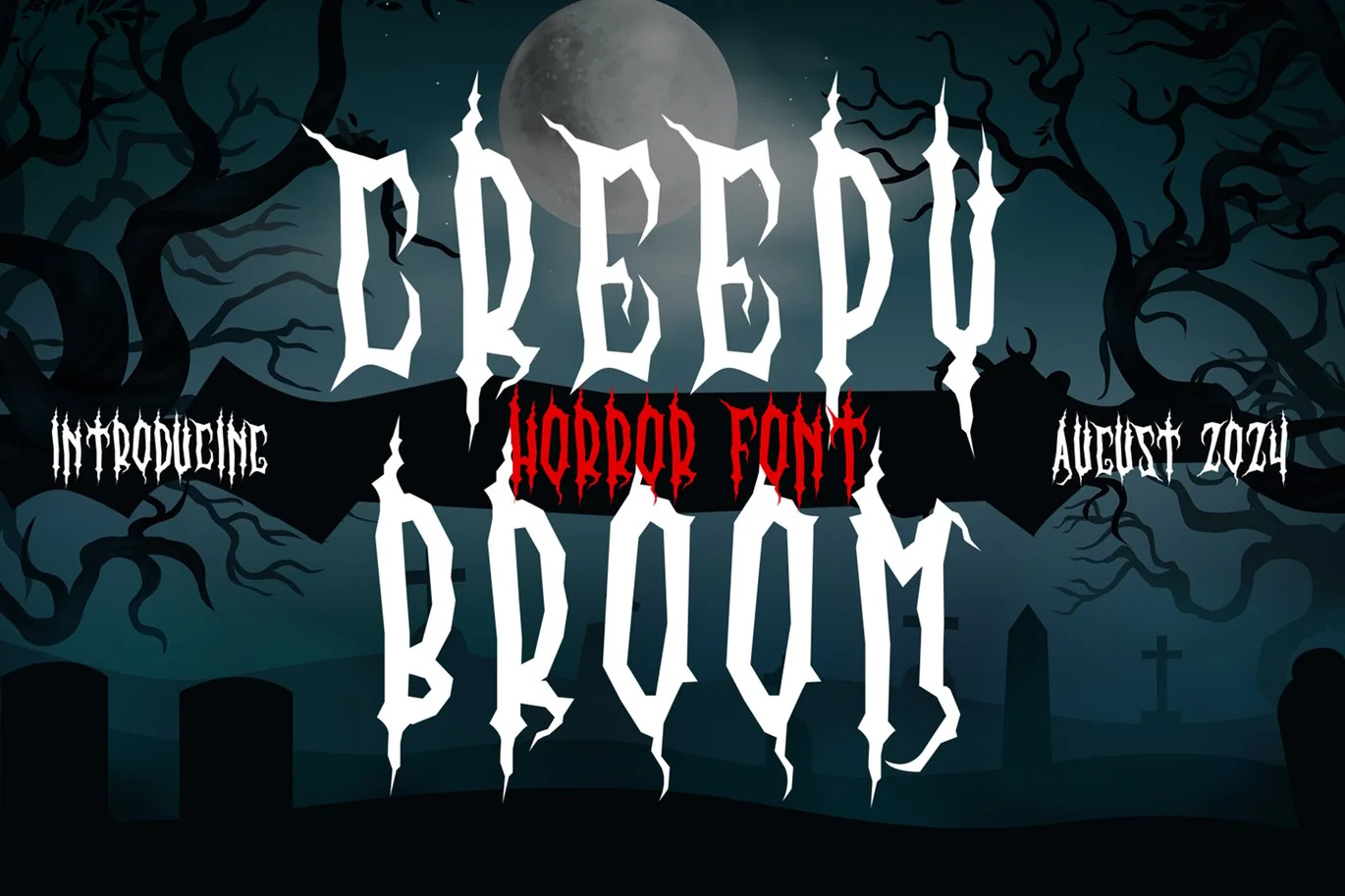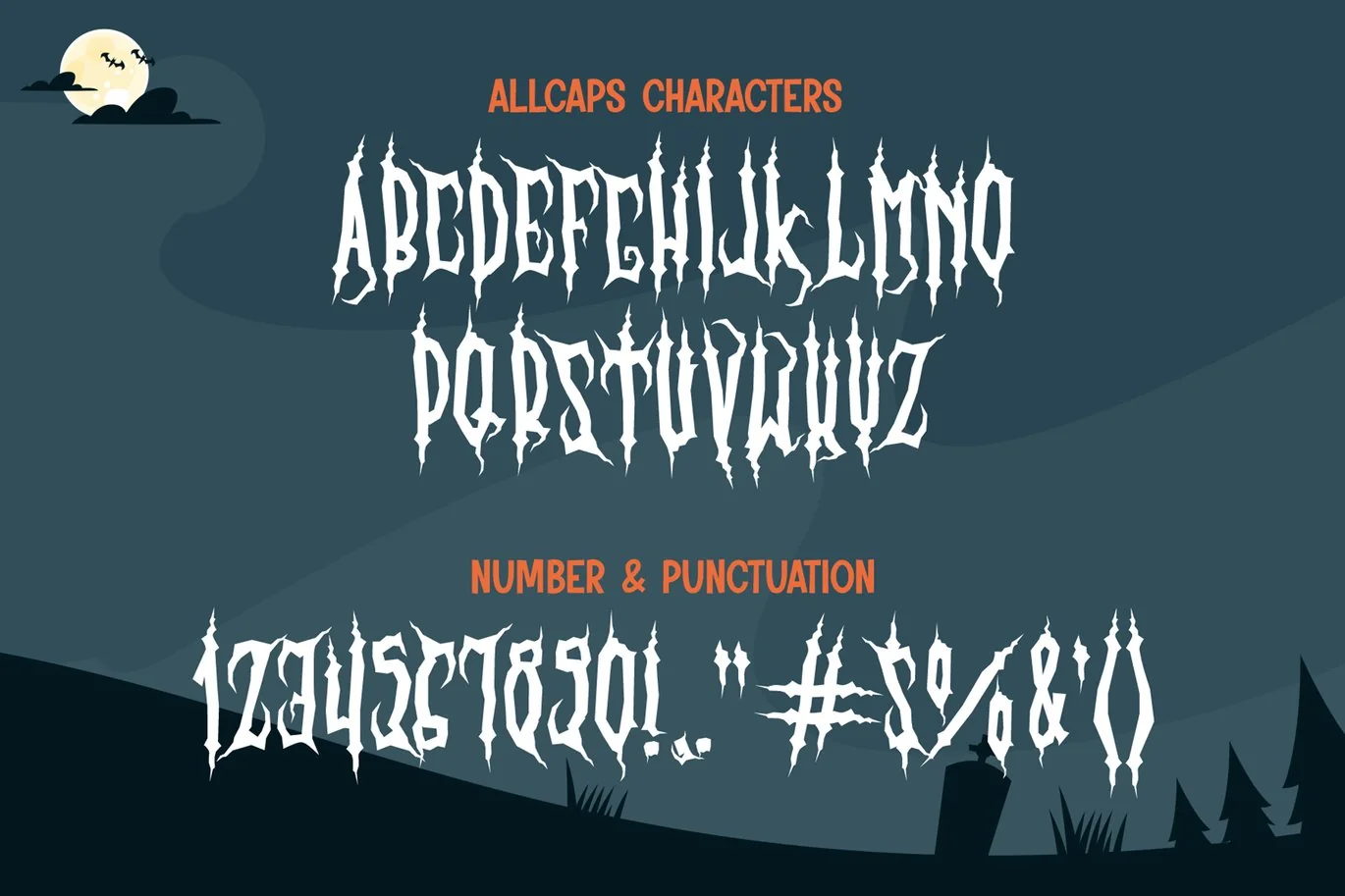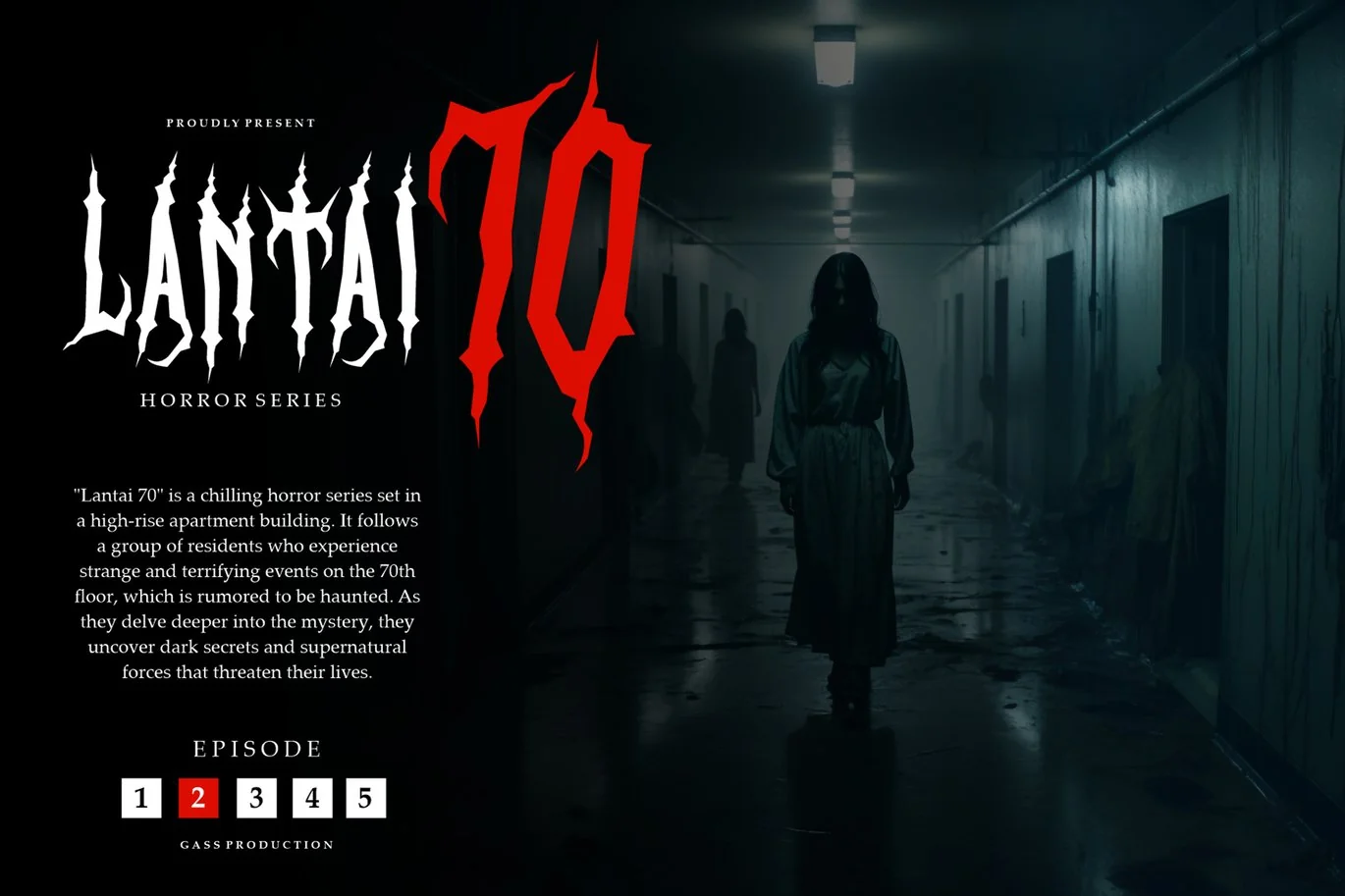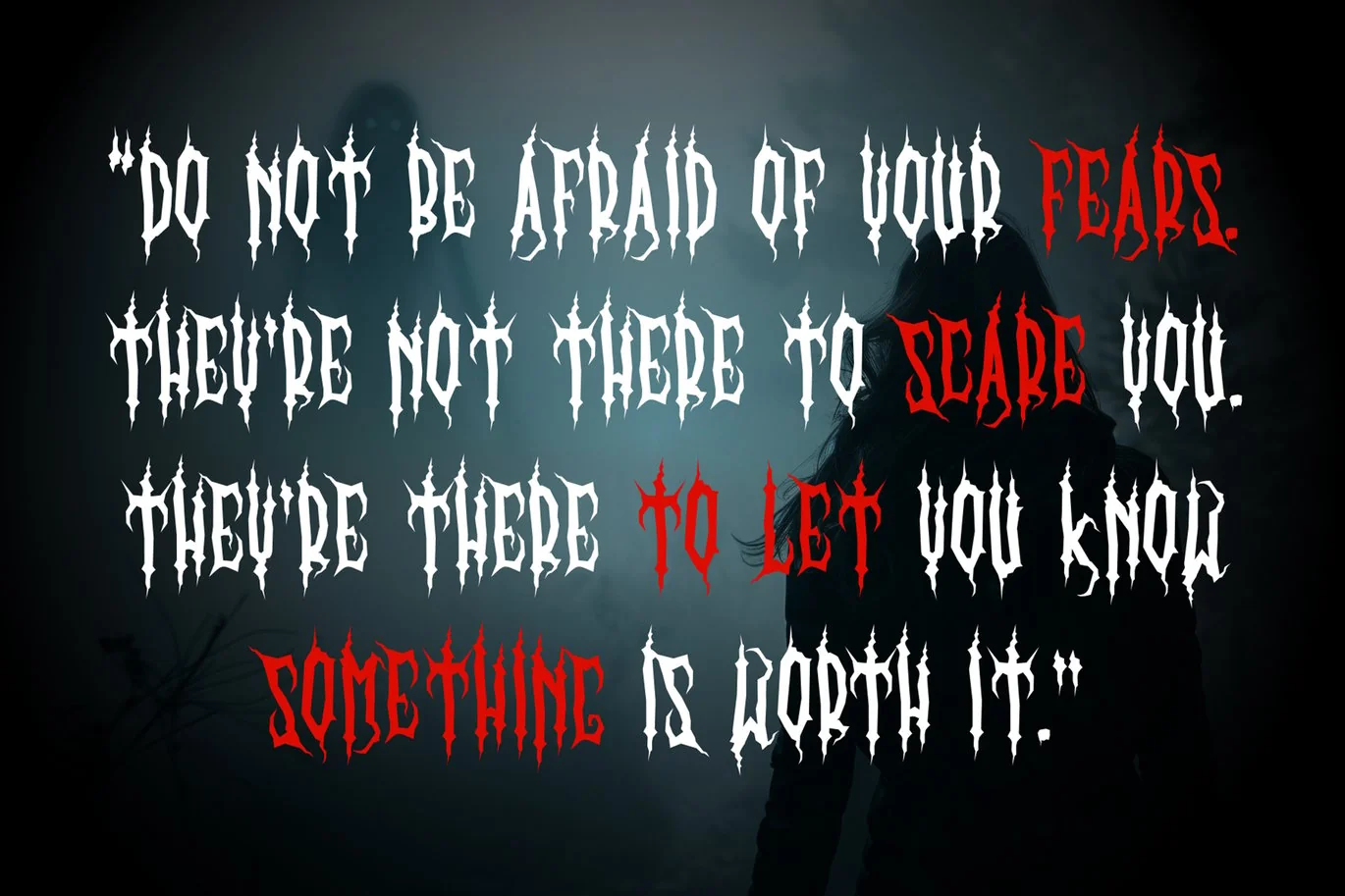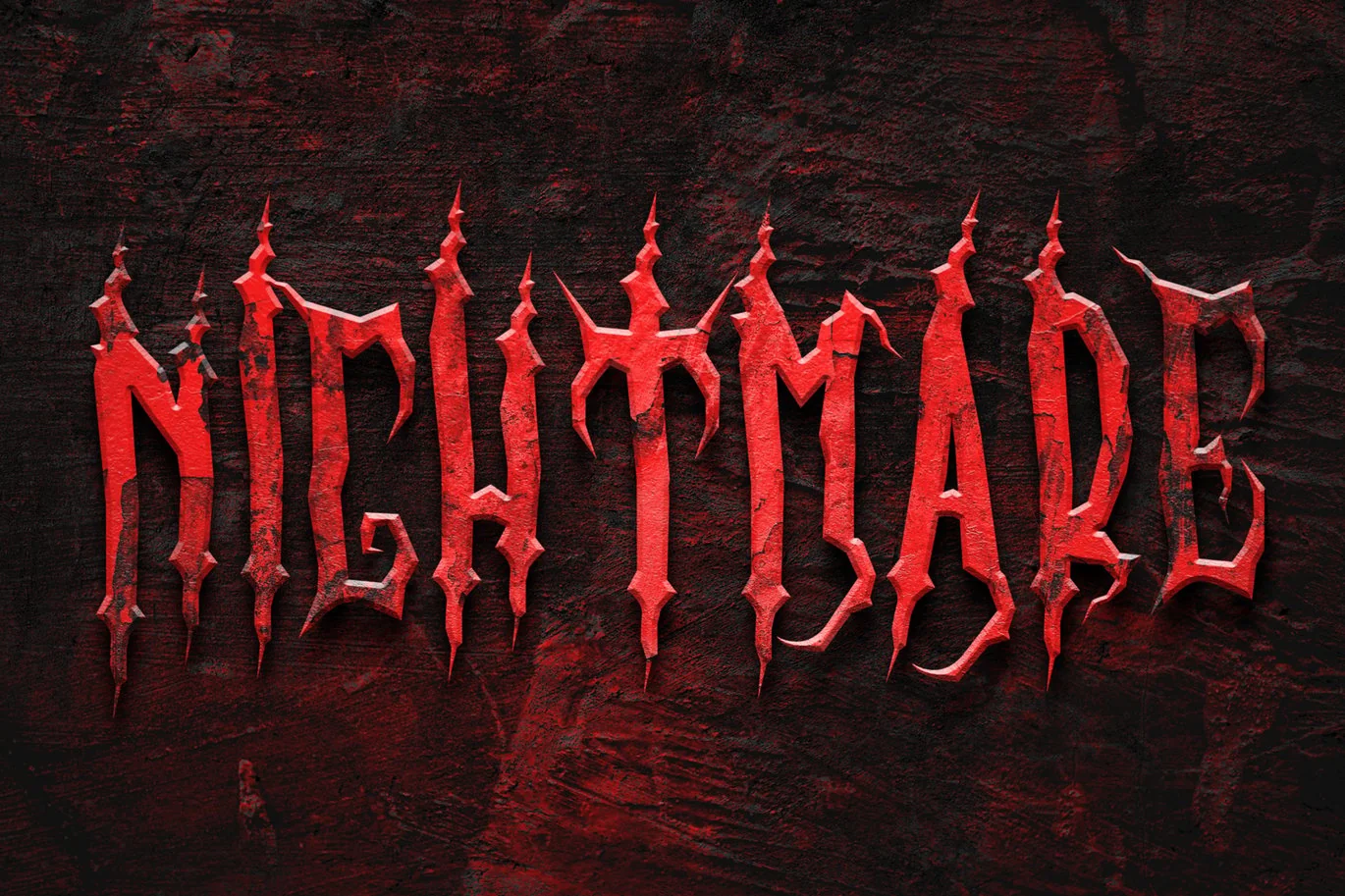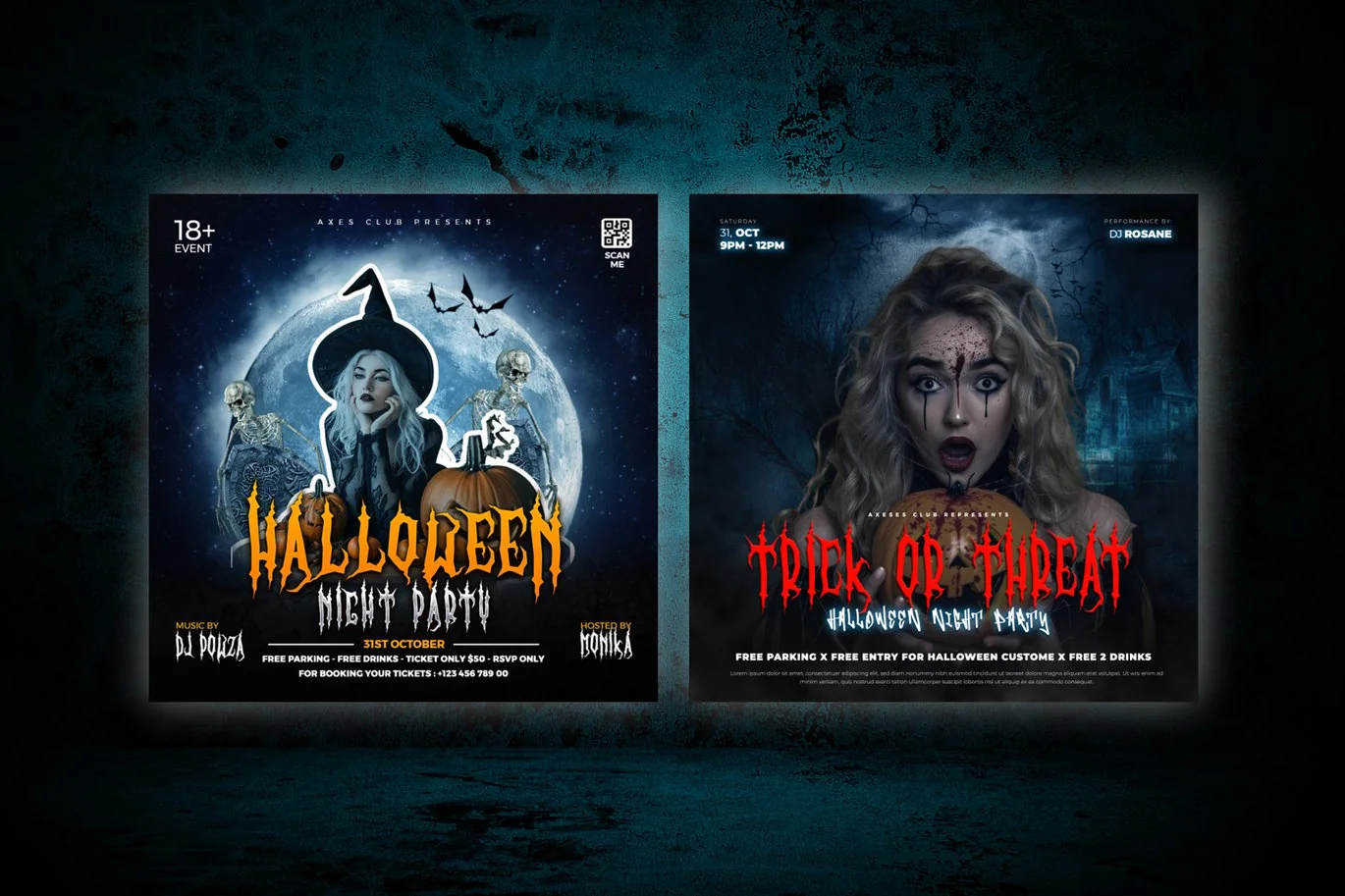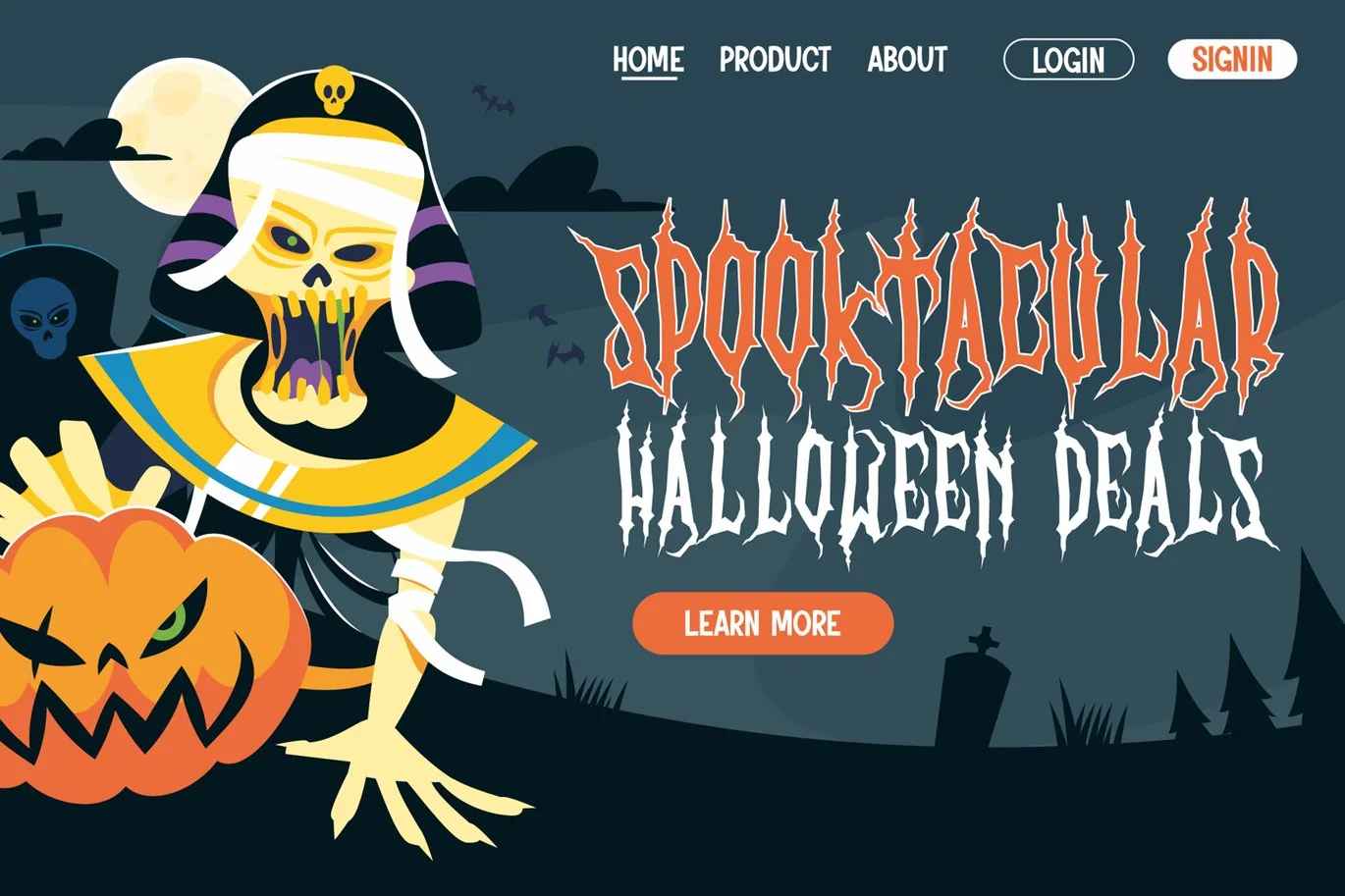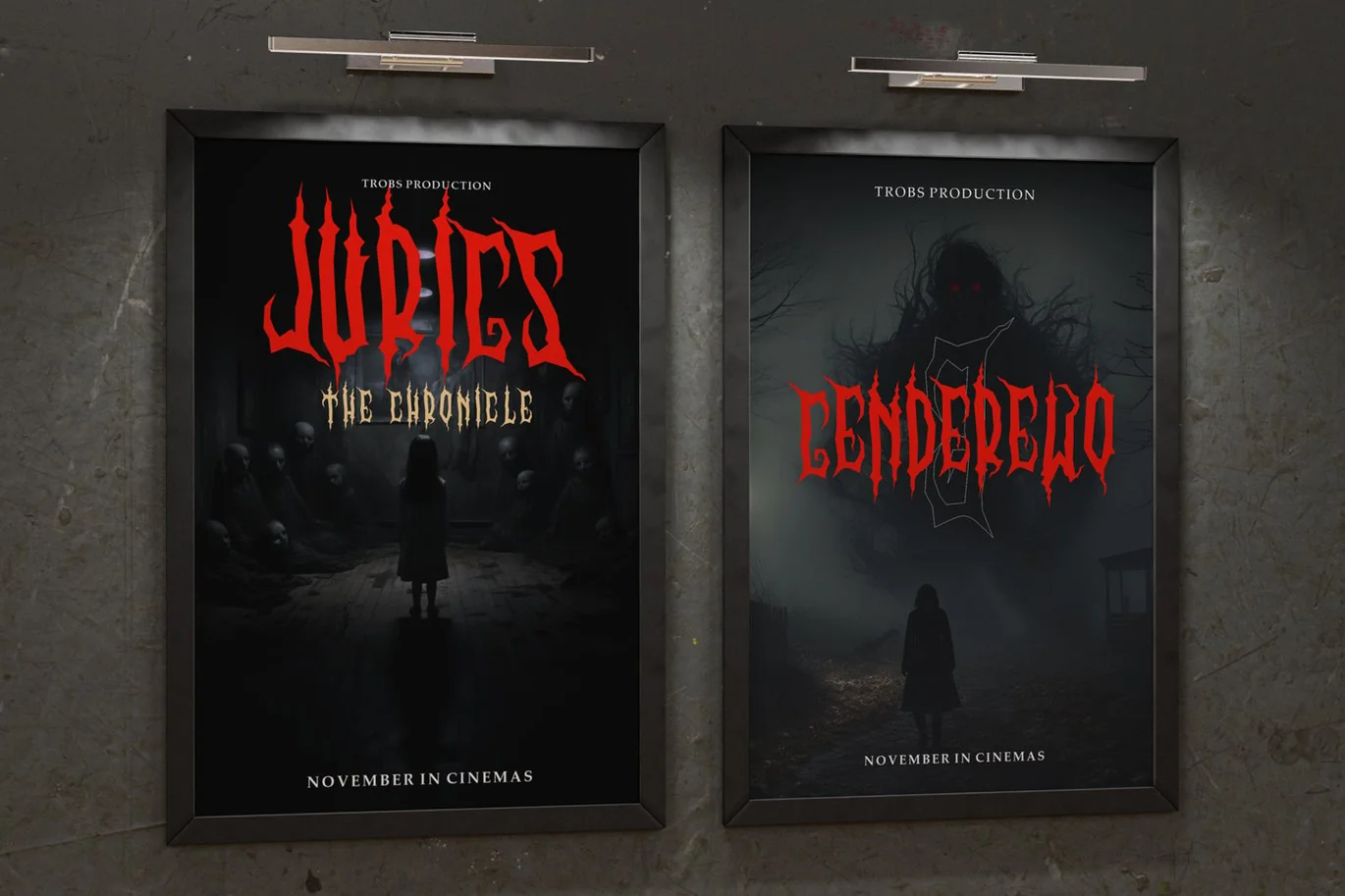
Creepy Broom – Scary Horror Halloween Font
Creepy Broom is a terrifying Halloween display font that perfectly captures the essence of spooky and horror-themed projects. With its menacing and eerie characters, this font adds a spine-chilling touch to any design. Ideal for Halloween invitations, posters, banners, and decorations, Creepy Broom enhances the atmosphere of fear and suspense. The font’s unique and frightening style makes it stand out, ensuring your projects leave a hauntingly memorable impression. Whether you’re creating party invites, event flyers, or eerie decorations, Creepy Broom brings an authentic horror feel to your designs. Embrace the fear and make your Halloween projects terrifying with Creepy Broom, the perfect choice for adding a ghoulishly perfect finish to your creative works.